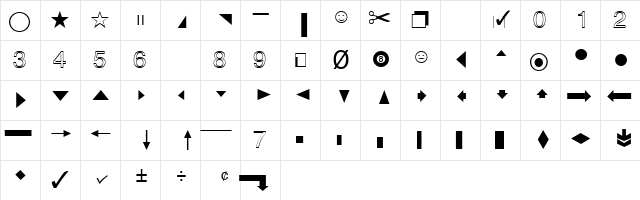
QuickType II Pi Regular
| Foundry | Agfa Monotype Corporation |
Design Context for QuickType II Pi Typeface
QuickType II Pi is a composed and adaptable typeface that performs quietly and consistently across a wide range of design contexts.